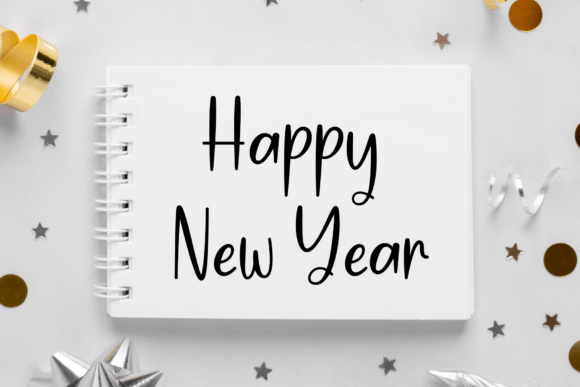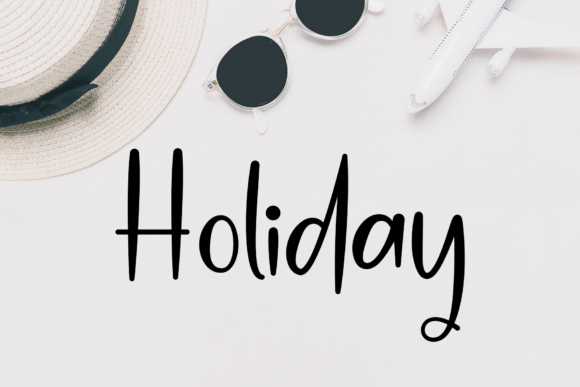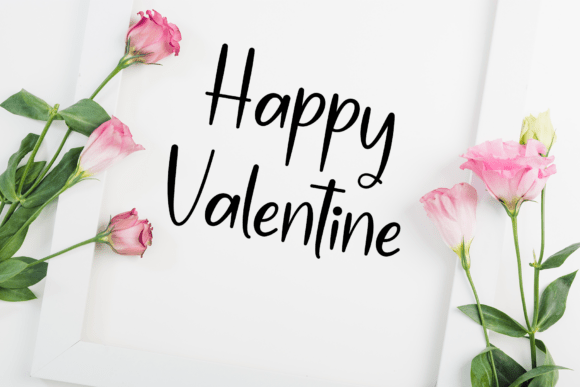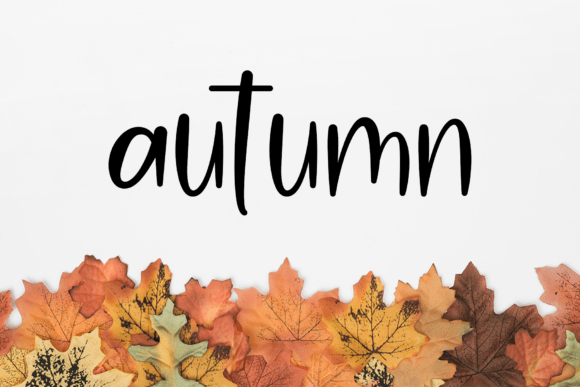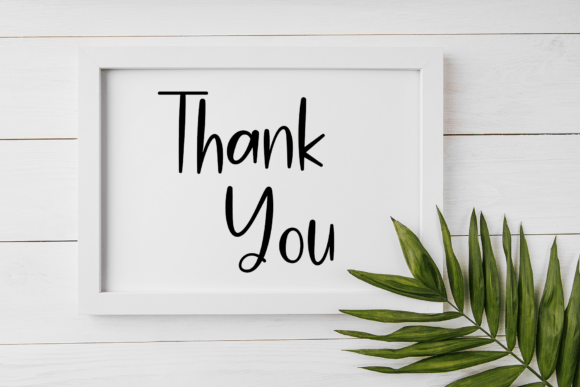
The Art of Elegant Typography: Unlocking the Power of Calligraphy Font
Have you ever sat down with a pen and paper, watching as the words flow effortlessly onto the page? It’s a moment of pure creative bliss, where the world slows down and all that matters is the movement of the pen and the beauty of the words. This is the essence of the Calligraphy Font, an exquisite exercise in elegance that captures the fluid, rhythmic motion of a master artisan’s pen.
As a designer, you’re always on the lookout for ways to add a touch of sophistication and personality to your projects. That’s where the Calligraphy Font comes in – a premier typeface that’s designed to elevate your work to new heights. With its beautiful balance of thick and thin strokes, elongated ascenders, and sweeping descenders, this font is the perfect choice for any project that requires a high-end feel.
Key Features of Calligraphy Font
- Font Styles: Calligraphy Font offers a range of elegant and sophisticated font styles, including script, cursive, and decorative fonts, perfect for adding a touch of luxury to your designs.
- Character Set: Includes a comprehensive character set, covering Latin, Cyrillic, and Greek alphabets, as well as a range of punctuation and special characters.
- Unique Characteristics: Distinctive swashes, flourishes, and connecting strokes that evoke a sense of elegance and refinement, making it ideal for formal invitations, certificates, and other special occasions.
- Font Pairing: Designed to pair well with a range of font styles, including serif, sans-serif, and script fonts, allowing for flexibility and creativity in your design projects.
Calligraphy Font Review
Overall, I think the Calligraphy Font has a lot of potential ✨. Its elegant and flowing design makes it perfect for creating a sophisticated and professional look. The font is versatile and can be used in a variety of settings, from wedding invitations to business reports.
The Calligraphy Font also excels in its ability to add a touch of luxury and sophistication to any design project ✨. Its high-end feel makes it perfect for branding and marketing materials, and its versatility means it can be used across a range of mediums, from print to digital.
- Elegant and flowing design
- Perfect for creating a sophisticated and professional look
- Versatile and can be used in a variety of settings
- High-end feel makes it perfect for branding and marketing materials
- May be difficult to read in small sizes due to its intricate design ⚠️
- Not suitable for fast-paced or high-impact text, such as news headlines ⚠️
- May require additional design elements to make it stand out ⚠️
Overall, I think the Calligraphy Font is a great addition to any designer’s toolkit. While it may have some limitations, its unique design and versatility make it a valuable resource for creating sophisticated and professional-looking designs.